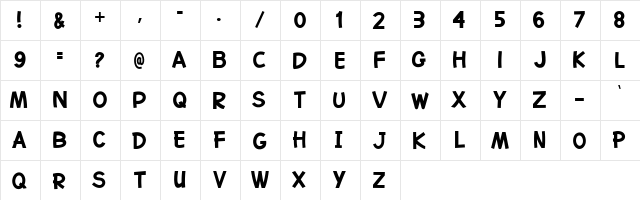
Go Bear Regular Font Preview
Go Bear Regular
Go Bear Regular Font Details
| Foundry | Polah |
| Designer | Polah |
Design Context for Go Bear Typeface
Go Bear offers clean, dependable letterforms without strong stylistic allegiance, making it a practical choice for designers who need flexibility.